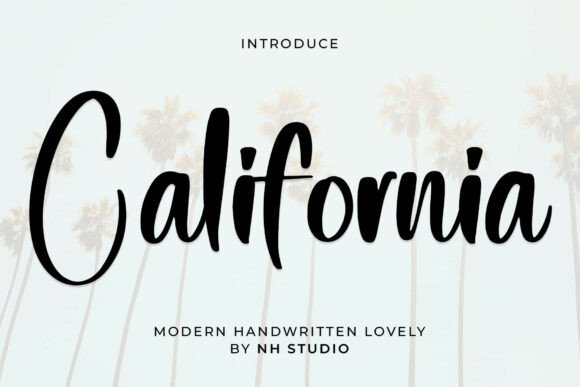
The California Font: A Sweet and Elegant Addition to Your Design Toolkit
I’ll never forget the time I was working on a wedding invitation project, and my client asked me to create a custom design that exuded elegance and romance. I spent hours scouring font libraries, but nothing seemed quite right. That was until I stumbled upon the California font. This beautiful, cursive handwritten font instantly captured the essence of what I was looking for – sweet, gentle, and sophisticated. In this article, I’ll share my experience with the California font, its features, and how to make the most of it in your designs.
An Honest Review of California Font
- ✨ The California font is incredibly versatile and can be used for a wide range of design projects, from branding and logos to wedding invitations and greeting cards.
- ✅ Its cursive, handwritten style adds a touch of warmth and personality to any design.
- 💕 The font’s elegant and romantic feel makes it perfect for creating sophisticated and eye-catching designs.
While the California font is an excellent choice for many design projects, there are a few things to keep in mind:
- ⚠️ As with any script font, it may not be the best choice for body text or long blocks of text, as it can be difficult to read.
- 🤔 Some of the font’s more intricate details may not display well at smaller sizes, so it’s best to use it at larger sizes or for headlines and titles.
The Backstory of California Font
The California font was designed by a team of typographers who wanted to create a font that captured the essence of the Golden State – warm, elegant, and sophisticated. The font’s design is inspired by traditional calligraphy and handwritten scripts, but with a modern twist. The result is a font that’s both elegant and approachable, perfect for a wide range of design projects.
| Font Name | California Font |
| Author | NH Studio |
Q: What is the California font?
A: The California font is a sweet and cursive handwritten font that’s perfect for adding a touch of elegance and romance to your designs.
Q: What can I use the California font for?
A: The California font is versatile and can be used for a wide range of design projects, including branding, logos, wedding invitations, greeting cards, and more.
Q: Is the California font easy to read?
A: While the California font is beautiful and elegant, it may not be the best choice for body text or long blocks of text, as it can be difficult to read.